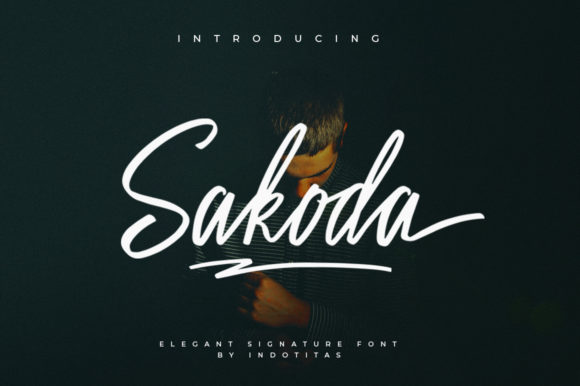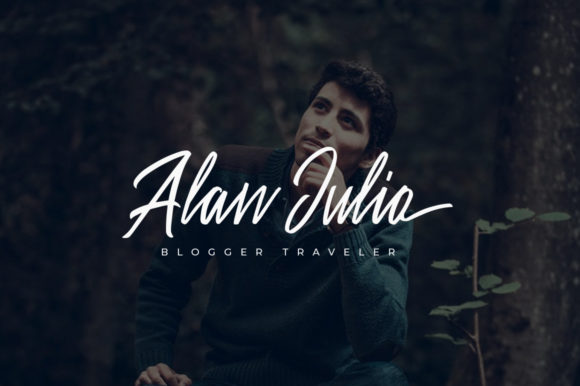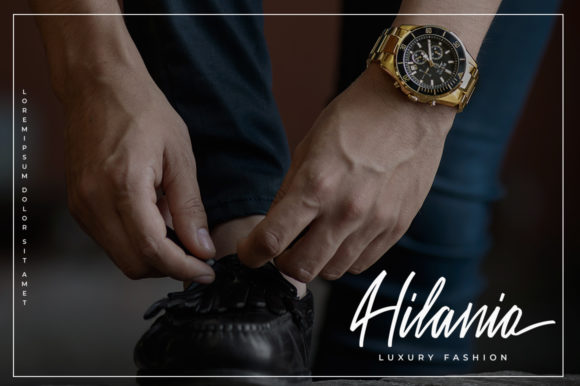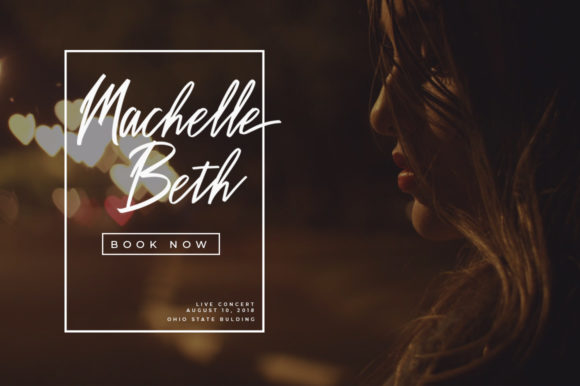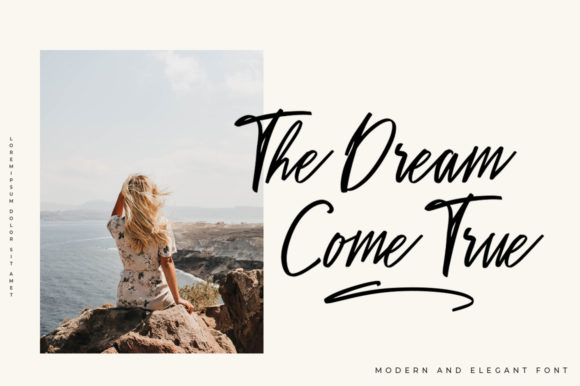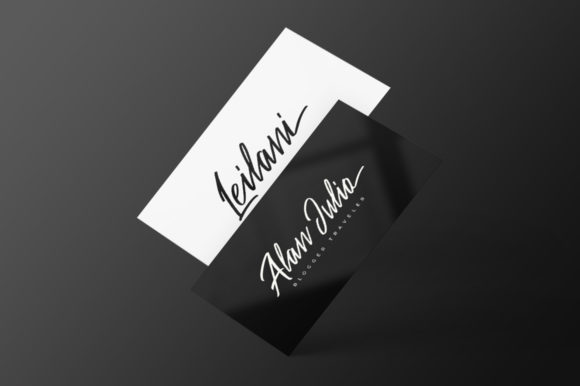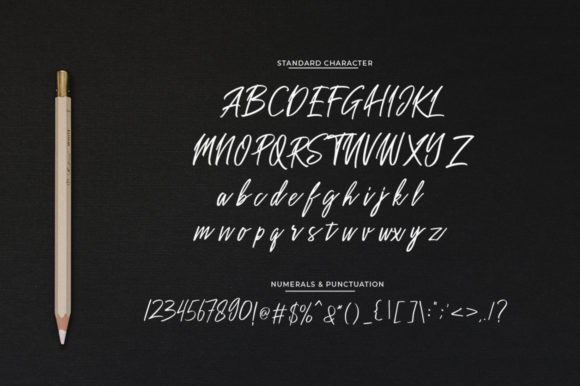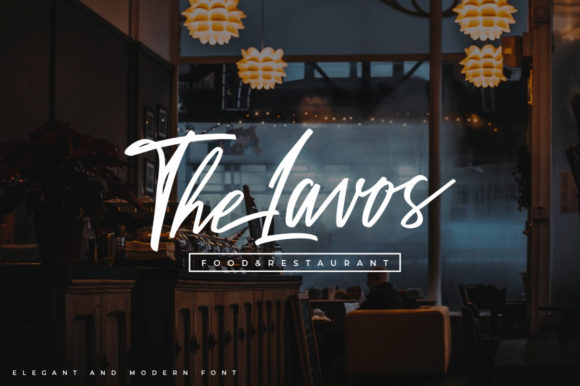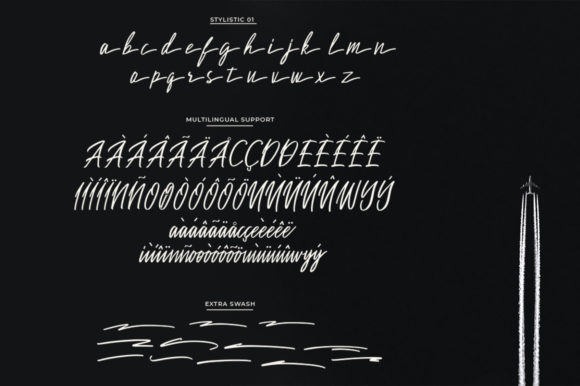
Sakodota Font
The Sakodota is an elegant and classy signature script. It has a natural handwritten style which is perfect for adding a personal feel to your designs.